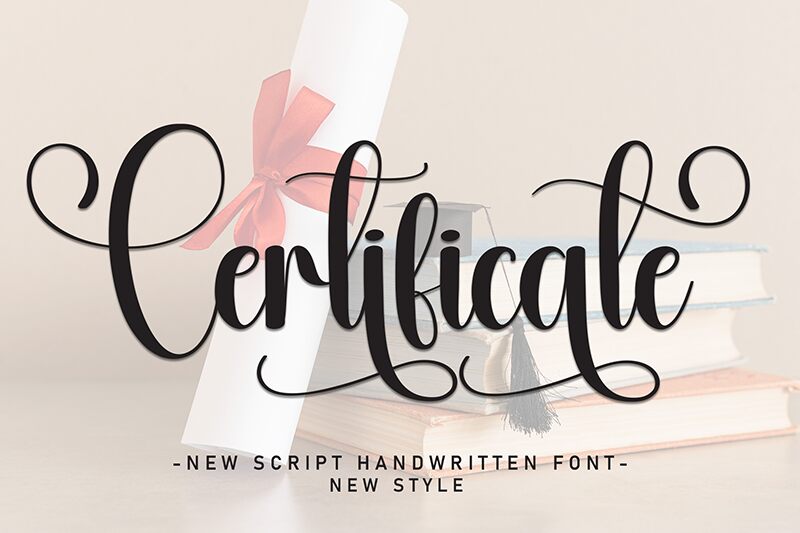
Certificate
Certificate font by Andi Moz is a free calligraphy font featuring elegant and flowing shapes similar to a casual classical script. The thin typeface has that sought-after decorative and sophisticated look that is perfect for fashionable and romantic projects. The hand-drawn designs have an artistic feel, convincing expressiveness, and remarkable detailing.
This compelling font will look mesmerizing in social media banners, invitations, greeting cards, pamphlets, brochures, magazine covers, ads designs (both printed and digital), billboards/stand signs/posters/handheld signs/button banners of all sizes. It can be for the web as well since it will look mesmerizing with a large display size.